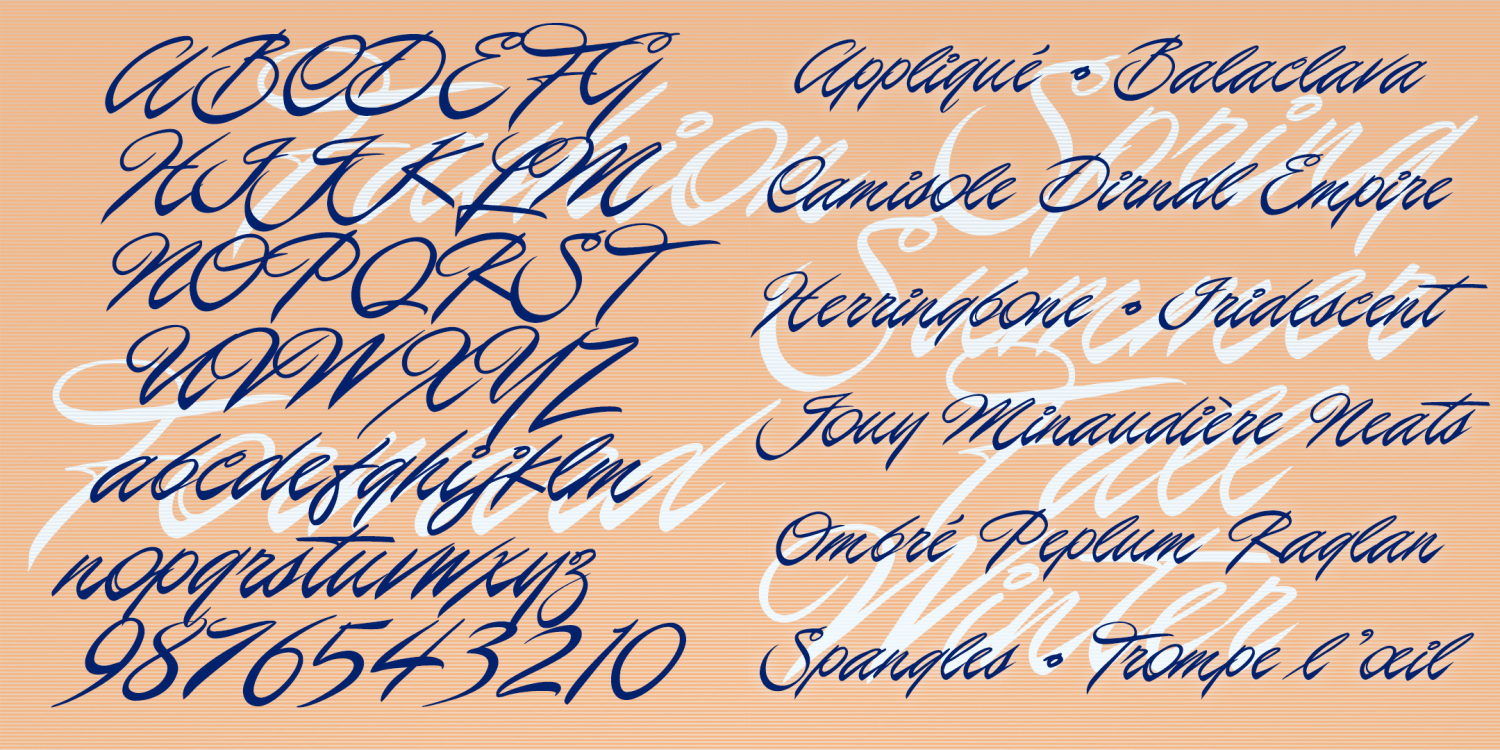
Fashion Forward
Fashion Forward is a slick and stylish cursive with a very strong incline. Inspired by classic brush lettering, this font combines glamour and energy.